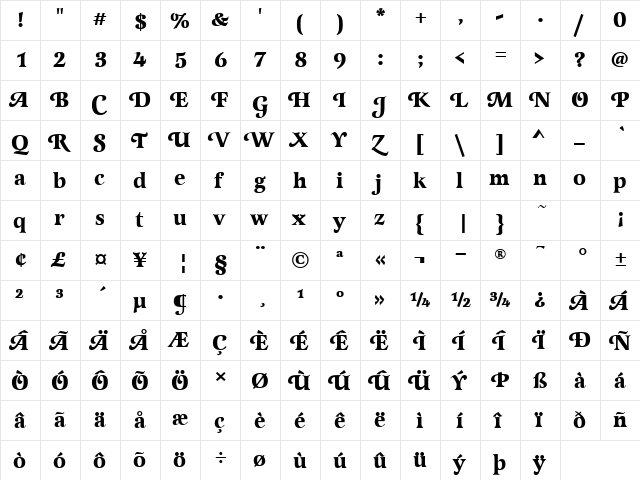
Marmalade Regular
Design Context for Marmalade Typeface
Marmalade offers clean, dependable letterforms without strong stylistic allegiance, making it a practical choice for designers who need flexibility.